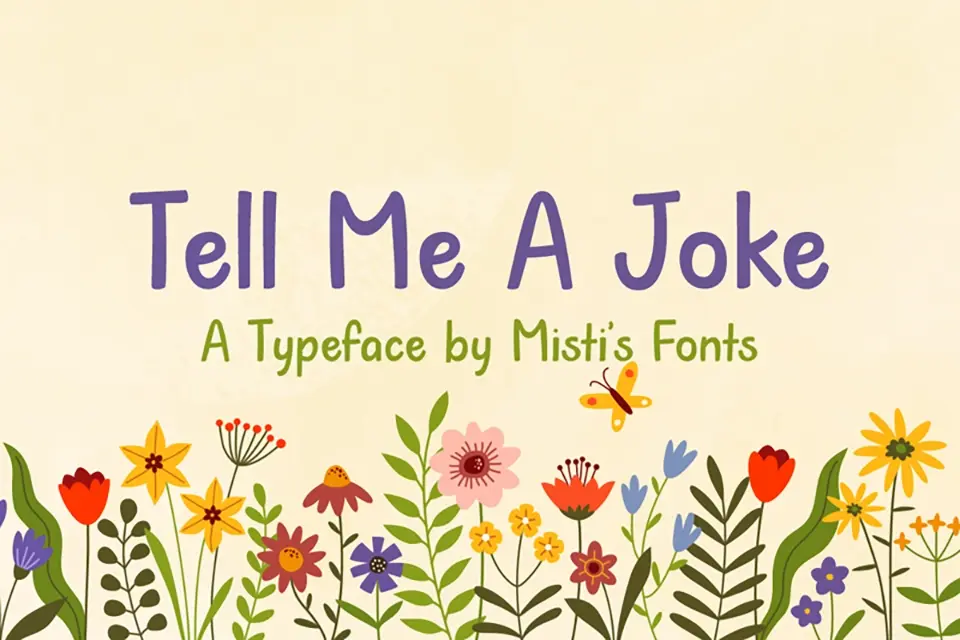
Tell Me A Joke Font
Tell Me A Joke is a delightful handwritten typeface that brings whimsy and charm to creative projects. This carefully crafted script font features playful strokes and friendly appearance, making it perfect for design purposes ranging from personal invitations to decorative text. Its cute and legible design adds unique flair and personality to any project, combining elegance with approachable charm.